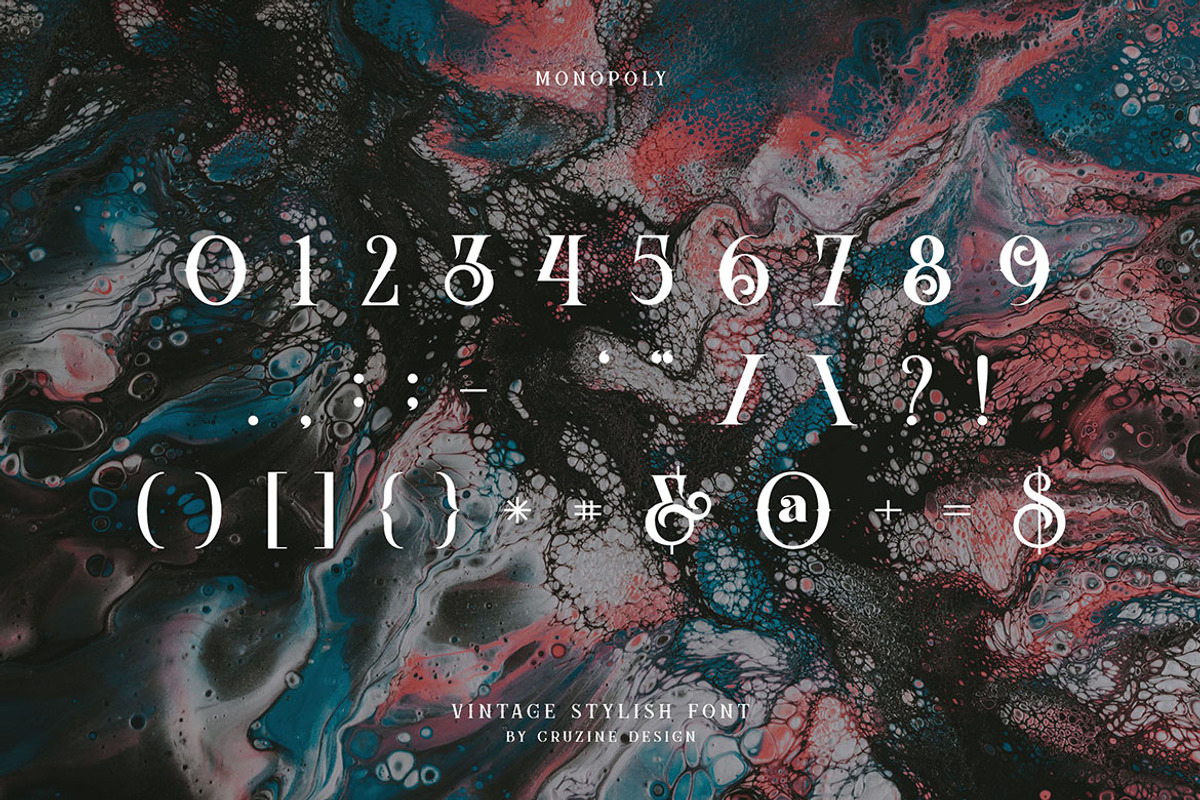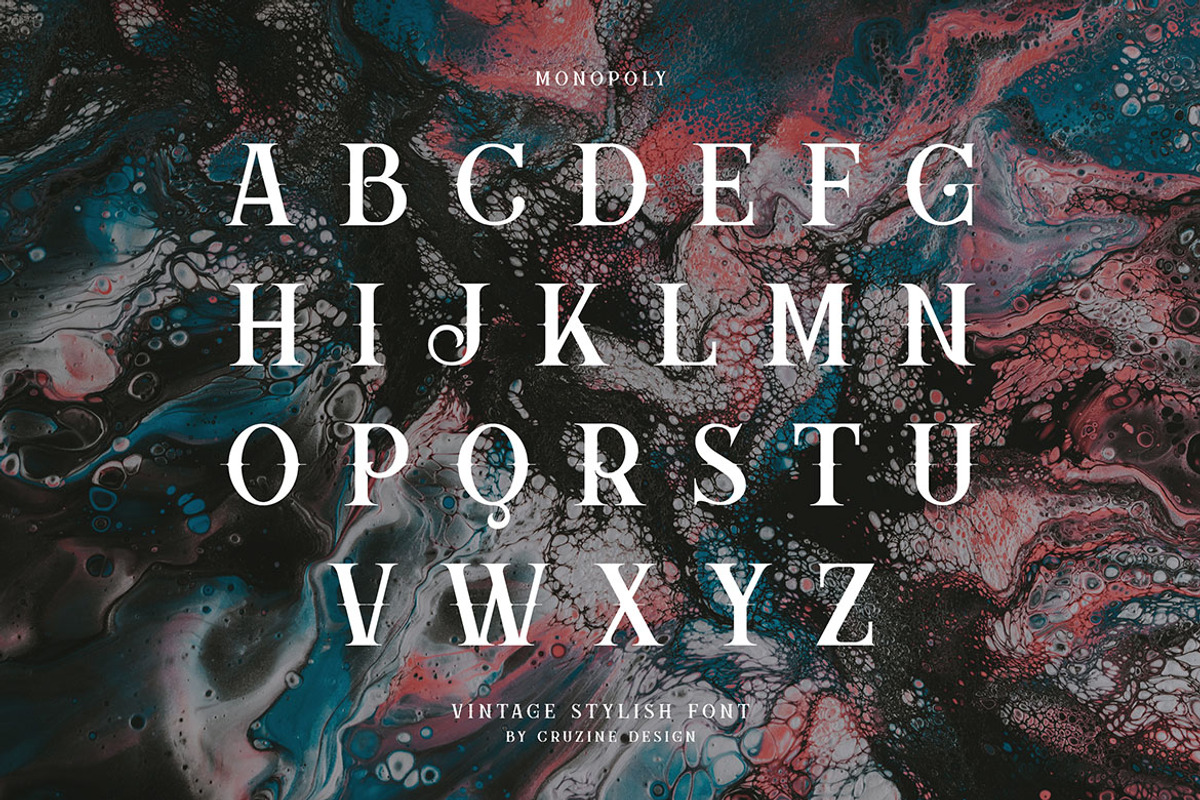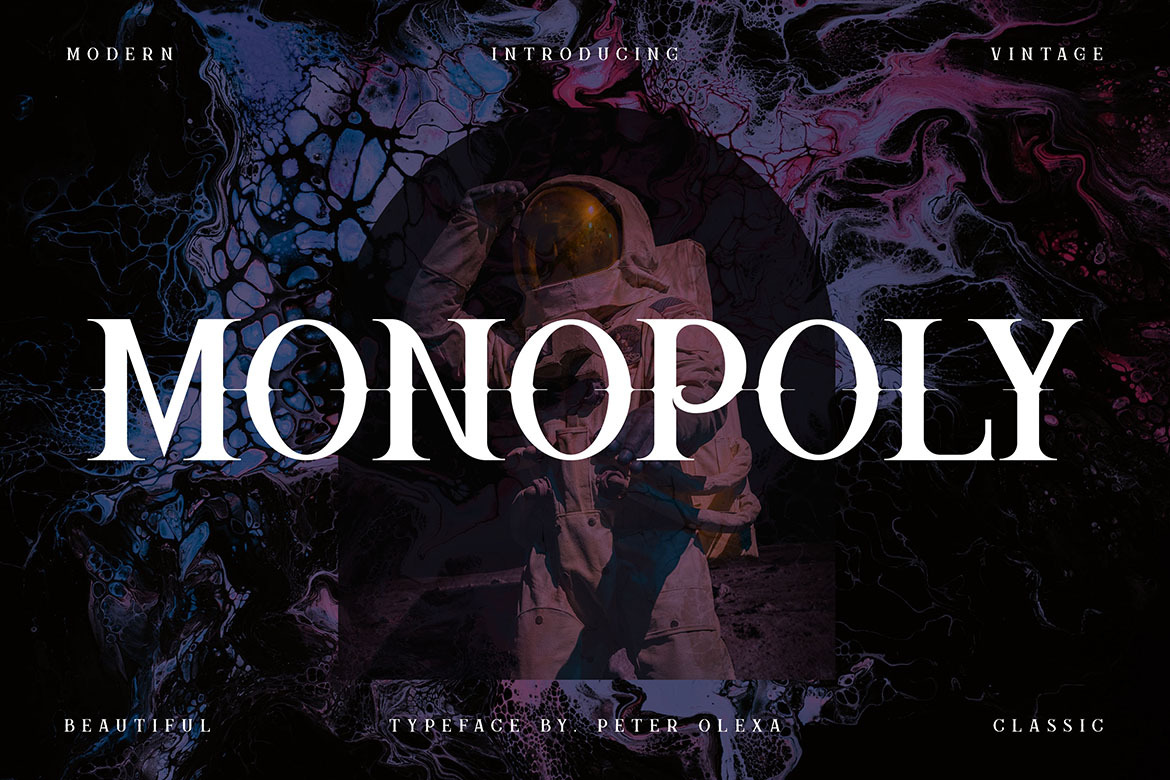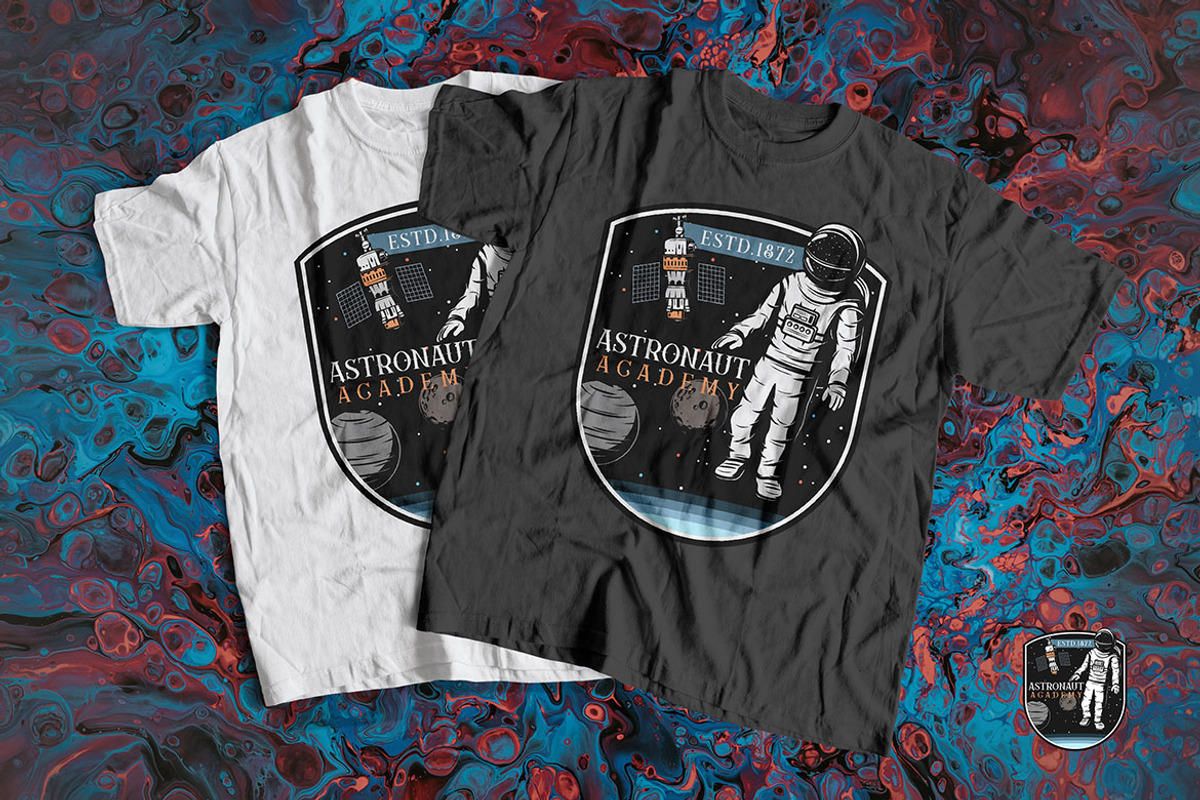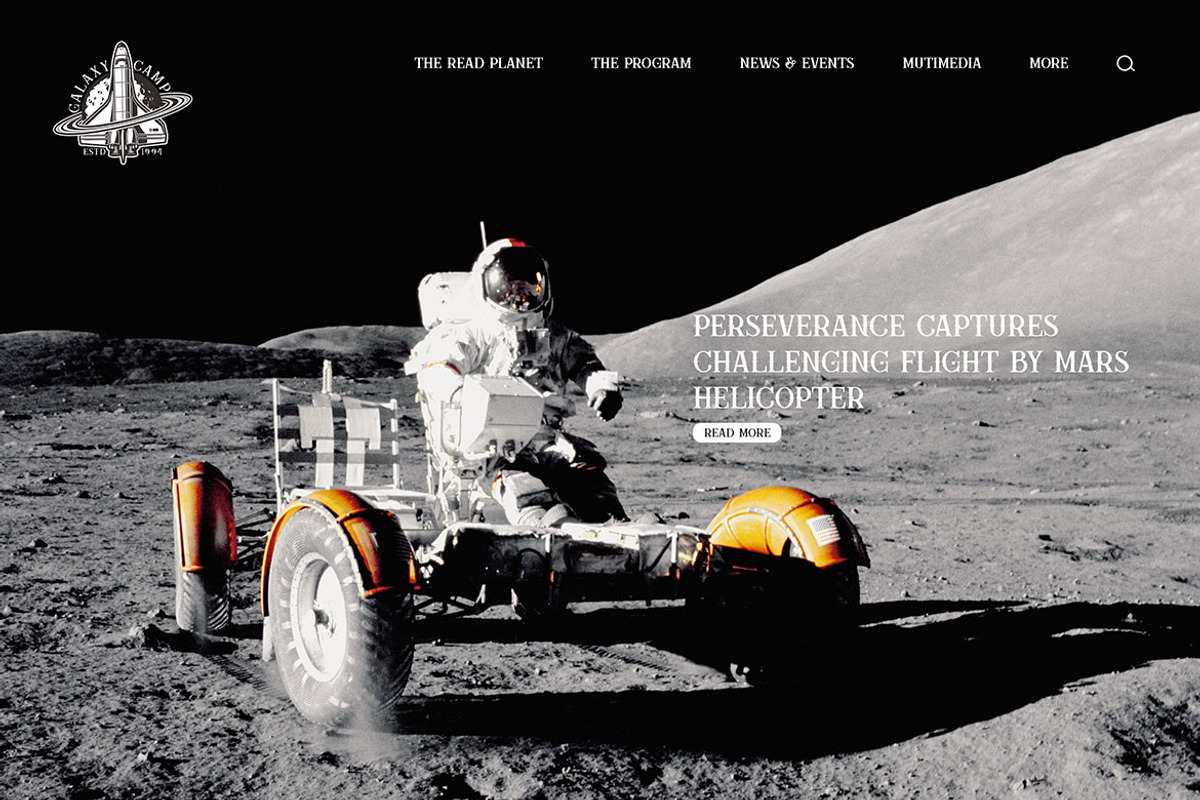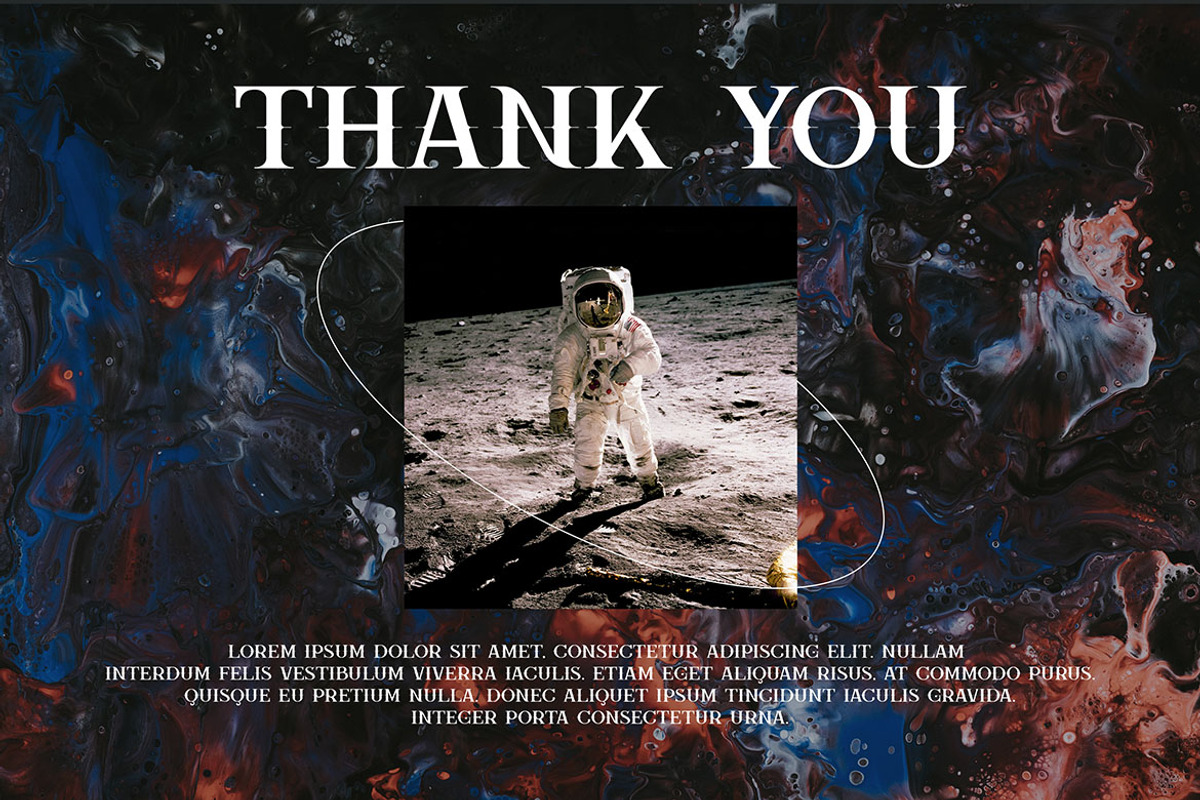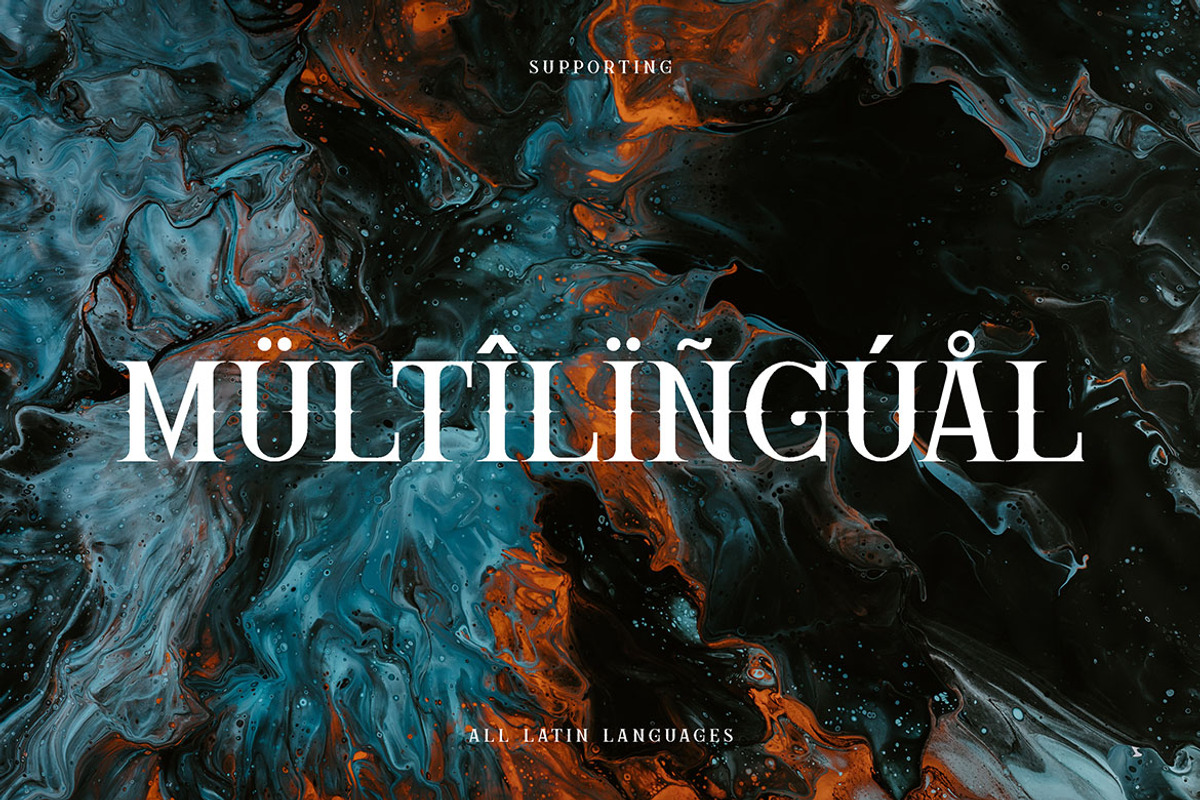
Monopoly - Vintage Serif Font
Unique vintage & ornamental, decorative style custom serif font. Comes with multilingual support - great for your new logo or branding project.
- Great for retro or vintage style branding projects